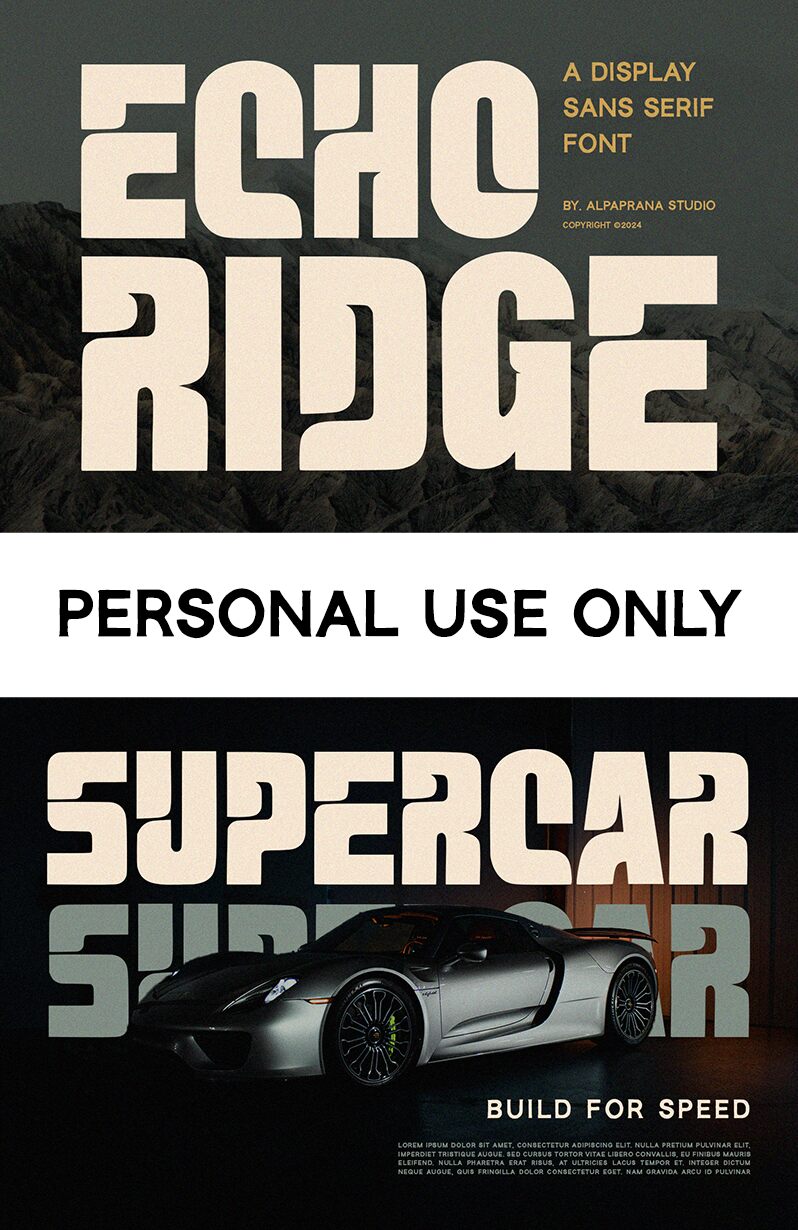
Echo Ridge font family by Alpaprana Studio comes in 2 font styles with a free personal use license. Its fancy style echoes industrial and contemporary aesthetics, making it a perfect choice for projects demanding assertive and strong typography. Though largely geometric and blocky, Echo Ridge has subtle details which contribute to its impactful and modern appearance.
Have fun using the free font family in posters, book covers, branding, and other print designs. Digital applications such as web design, app design, and online games are also good candidates. It will be great for personal and freelance art projects, whether targeted for larger audiences or self-enjoyment.